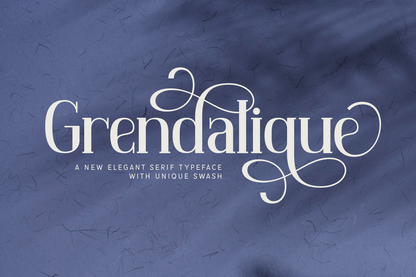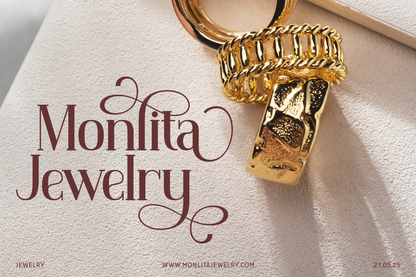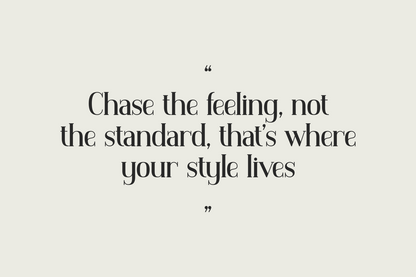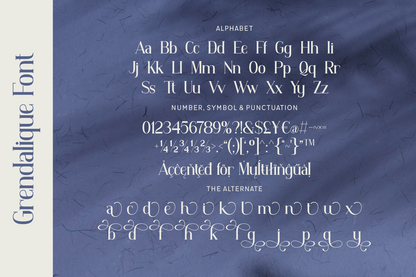
Grendalique is a sophisticated serif font with a high-fashion spirit and a hint of vintage drama. Its slender, elegant letterforms are paired with striking contrast and charming curves, creating a luxurious, editorial vibe. What sets Grendalique apart is its exquisite set of alternates and decorative swashes—perfect for adding a graceful flourish to logos, packaging, headlines, and upscale branding.
With full multilingual support, numbers, punctuation, and stylistic alternates, this font seamlessly blends creativity with precision. Grendalique is ideal for designers seeking a timeless yet distinctive typeface that adds artistic refinement to any composition.